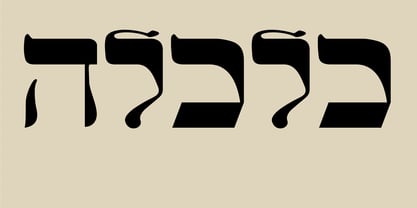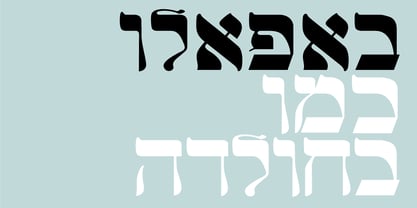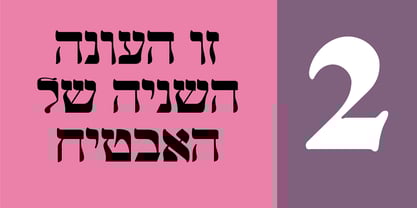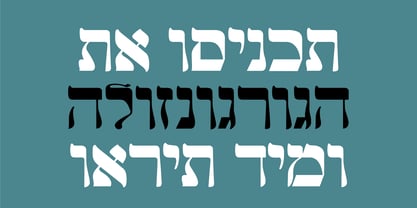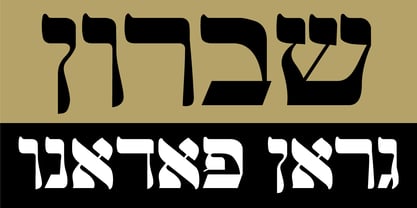
Safaradi MF
by Masterfont
The Safaradi MF Font Family was designed by Masterfont Design and published by Masterfont. Safaradi MF contains 1 styles.
This calligraphic scribble follows the traditional Hebrew type by intensive and free hand drawn lines. Tradition meets antique and Biblical test. This font family is a great choice when you want to effortlessly make your designs stand out with a remarkable clearly crafted handwriting.